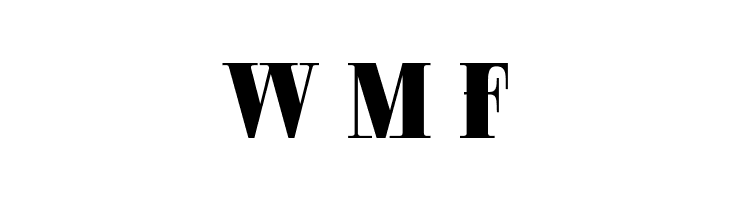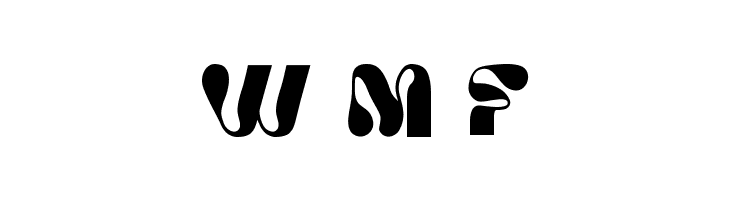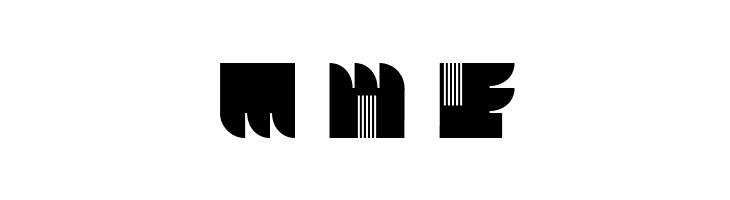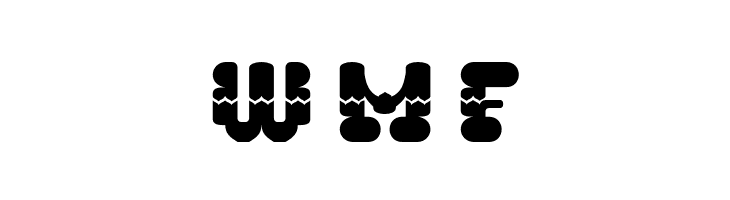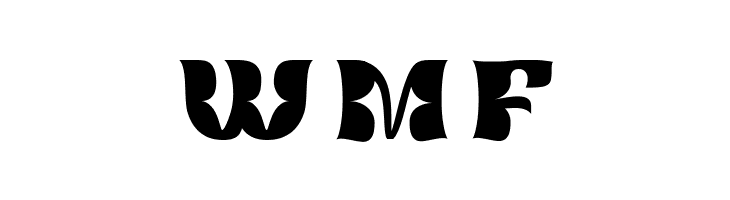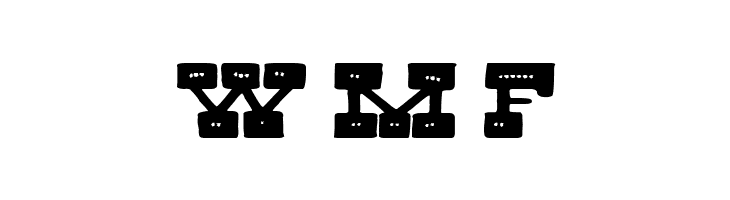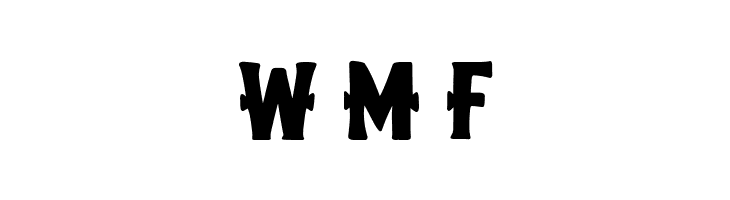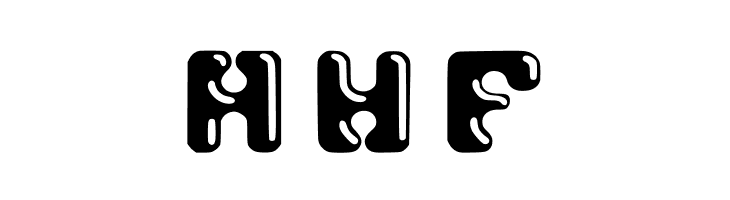
A bold, angular font with unique cutouts and an artistic, edgy style.
A bold, playful font with decorative cutouts and rounded edges.
A playful, rounded font with unique circular cutouts for a fun and casual look.
A bold, military-themed font with star cutouts in each character.
A bold, decorative font inspired by vintage neon signs with bulb-like cutouts.
A bold, geometric font with star-shaped cutouts for a decorative touch.
A bold serif font with high contrast and unique cutouts, perfect for dramatic designs.
A bold, artistic font with high contrast and playful cutouts.
A bold, geometric font with artistic cutouts and a modern flair.
A bold, geometric font with playful cutout designs.
A bold, geometric font with circular cutouts and a playful yet structured design.
A futuristic, geometric font with bold, rounded shapes and unique cutouts.
A bold, geometric font with sharp angles and unique cutouts.
A bold, decorative font with intricate cutouts and a striking appearance.
A bold, playful font with bubbly, rounded characters and whimsical cutouts.
A bold, geometric monogram-style font with sharp angles and decorative cutouts.
A playful, bold font with bubble-like letters and star cutouts, perfect for creative projects.
A bold, cutout-style font with high contrast and wide spacing, perfect for modern, edgy designs.
Playful, bold decorative font with inline cutouts.
Bold, blocky display font with dotted cutouts and slab serifs.
A bold, distressed display font with jagged cutouts and a horror vibe.
Bold, industrial stencil font with geometric cutouts.
Bold, festive display font with jagged, winter-inspired cutouts.
Bold decorative font with star cutouts, ideal for festive themes.
Bold, rounded display font with geometric cutouts and playful style.
Bold, condensed display font with playful cutout shapes.
Bold, playful decorative font with bubble-like cutouts.
A bold, angular serif font with geometric elements and uppercase uniformity.
A futuristic, bold font with rounded, geometric letterforms and smooth curves.
A 3D cubic font with a modern, geometric style.
A modern, geometric font with bold outlines and circular accents.